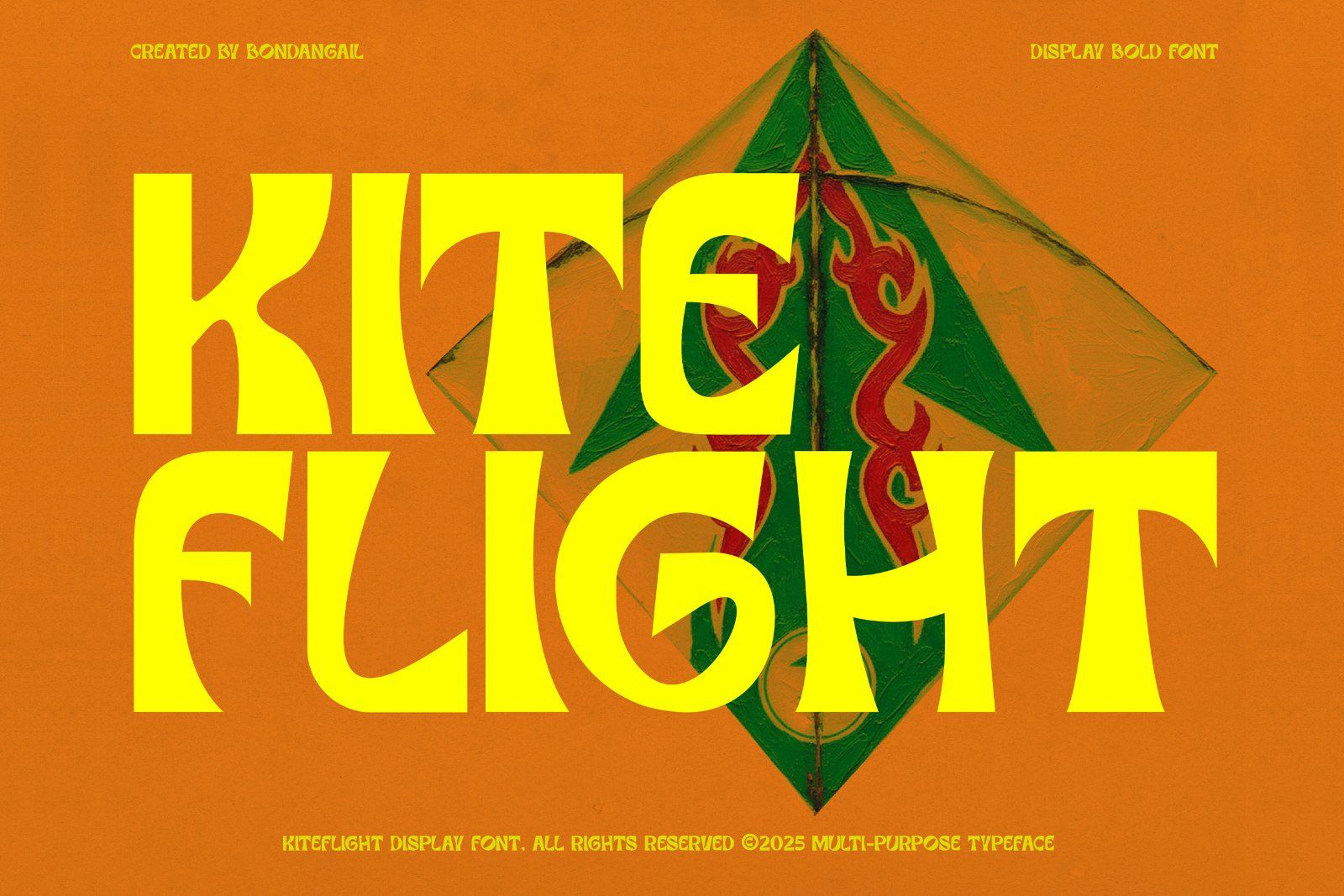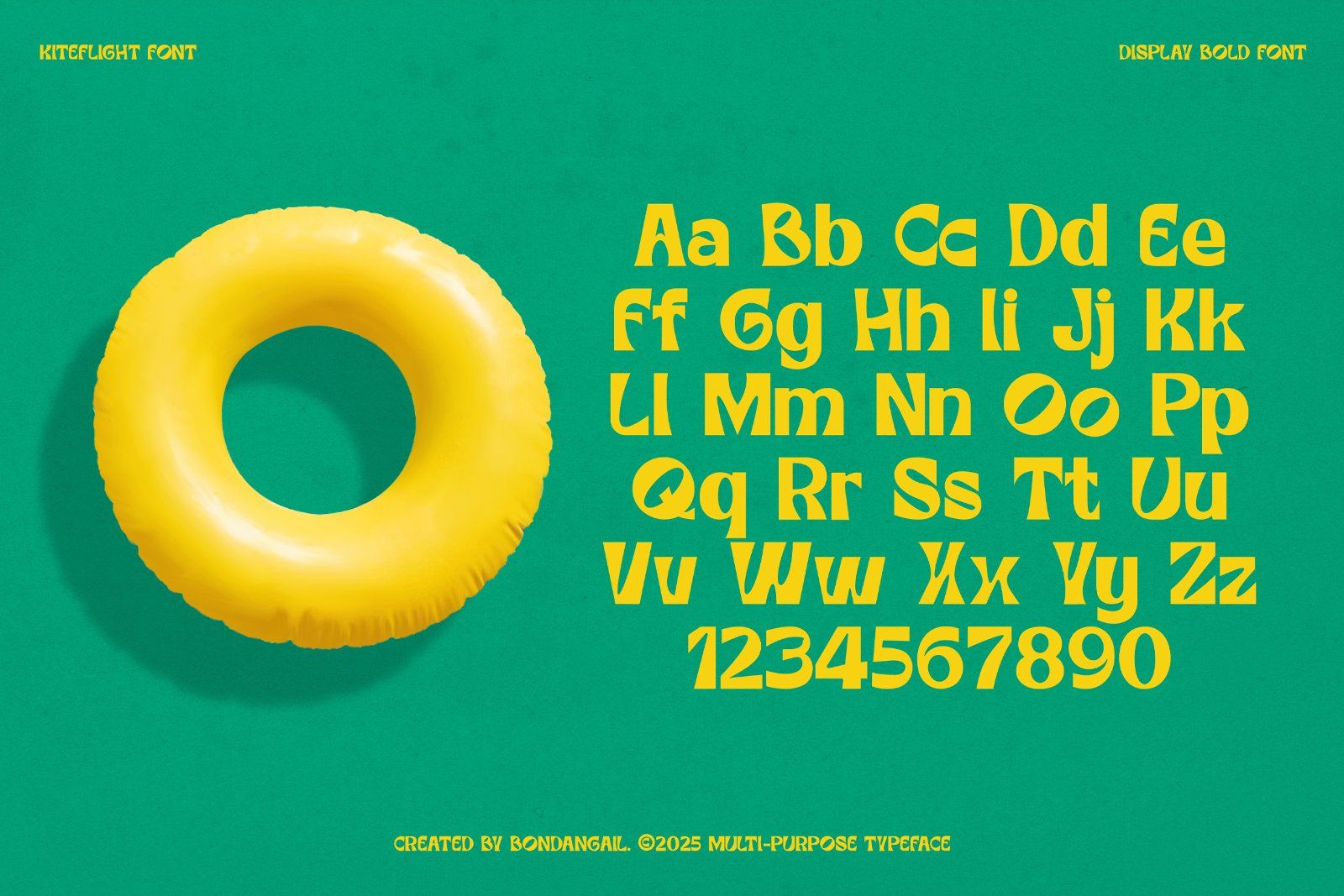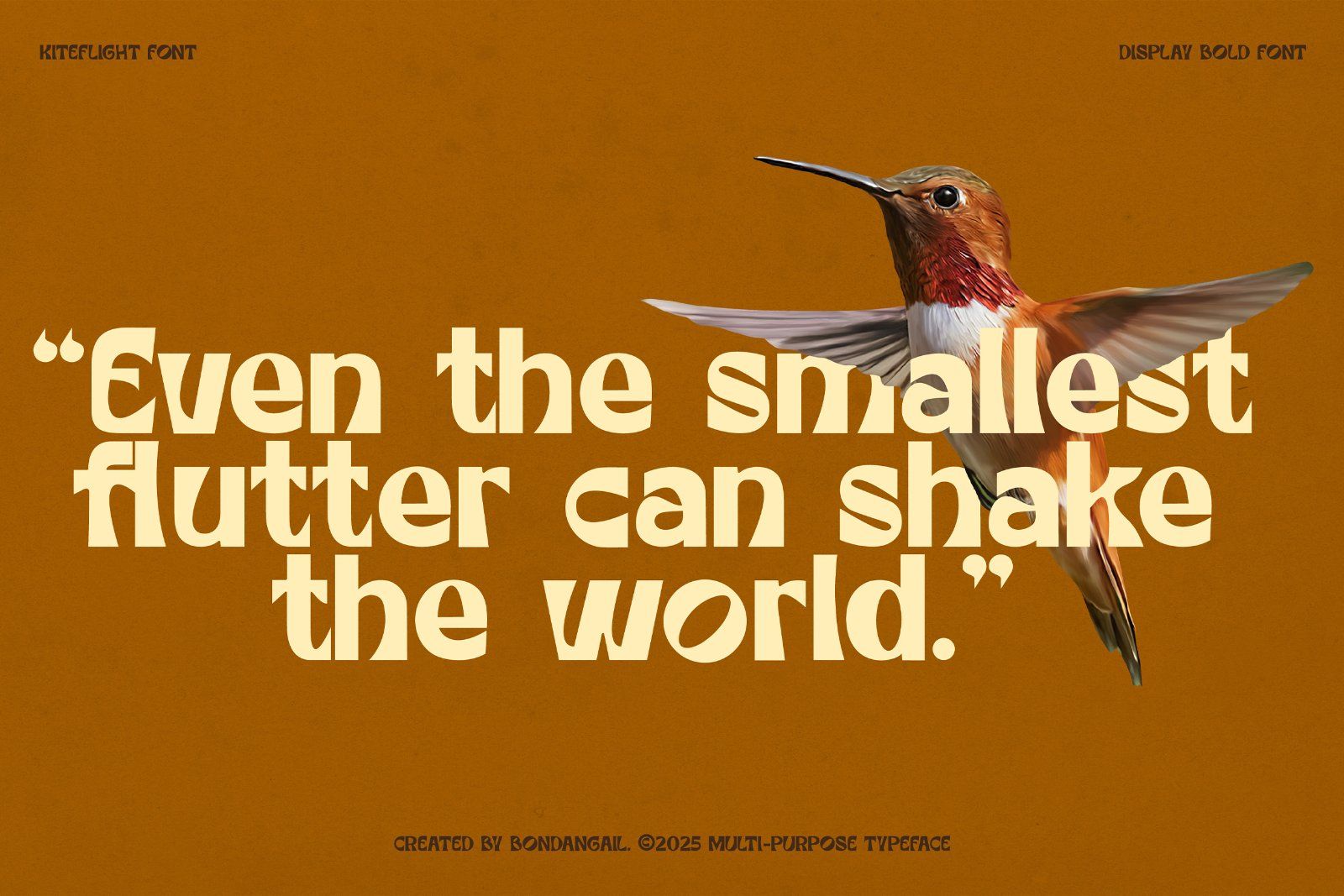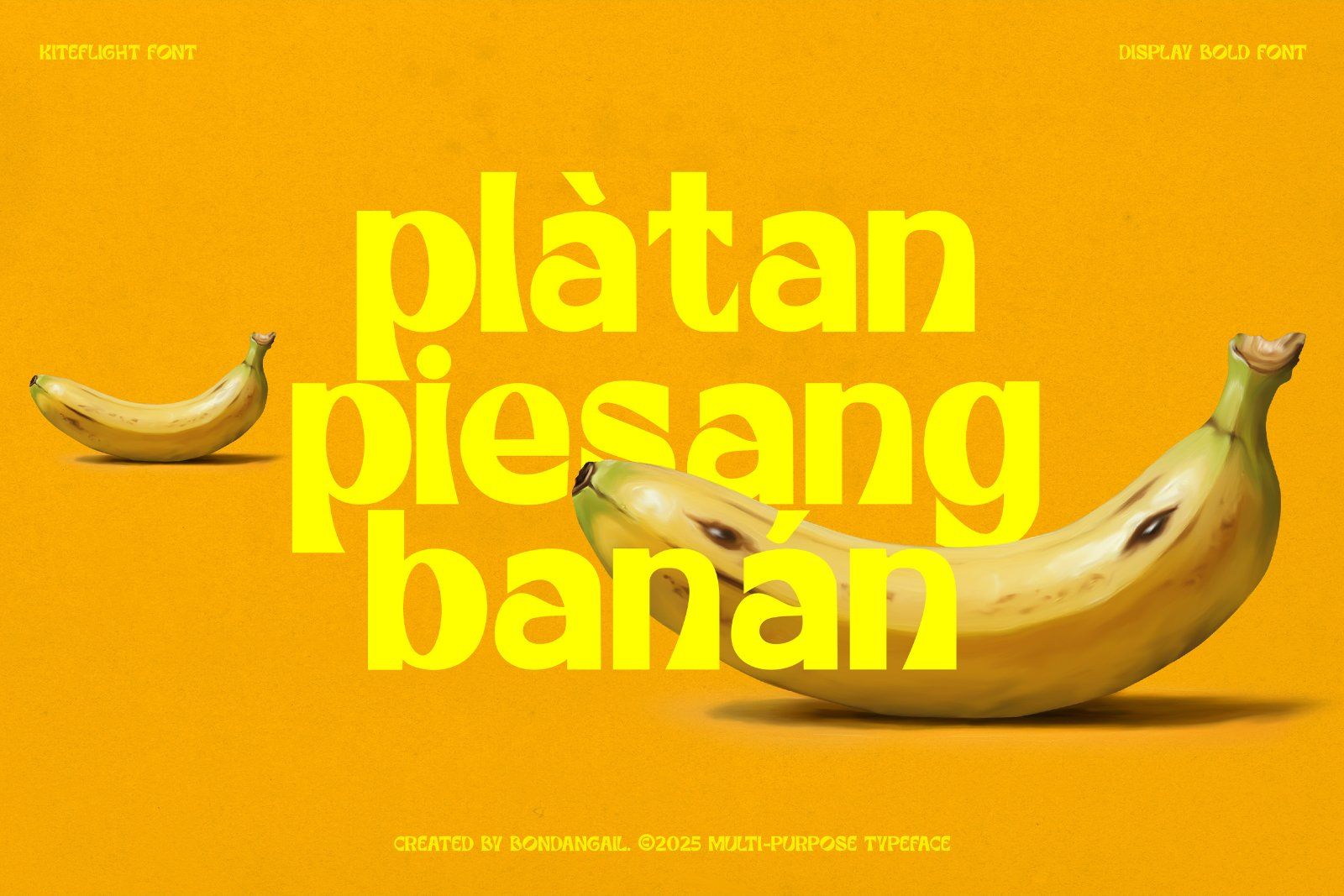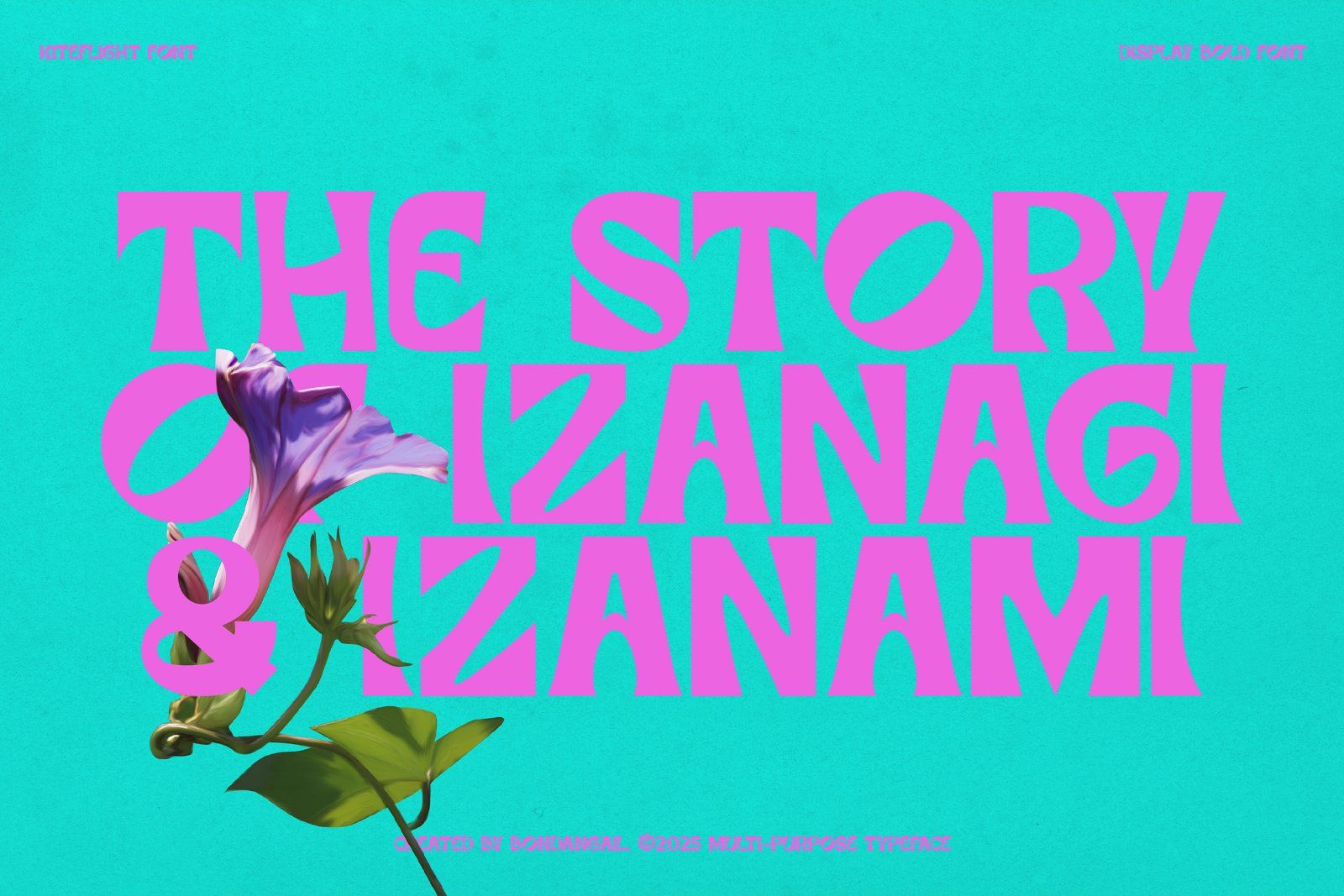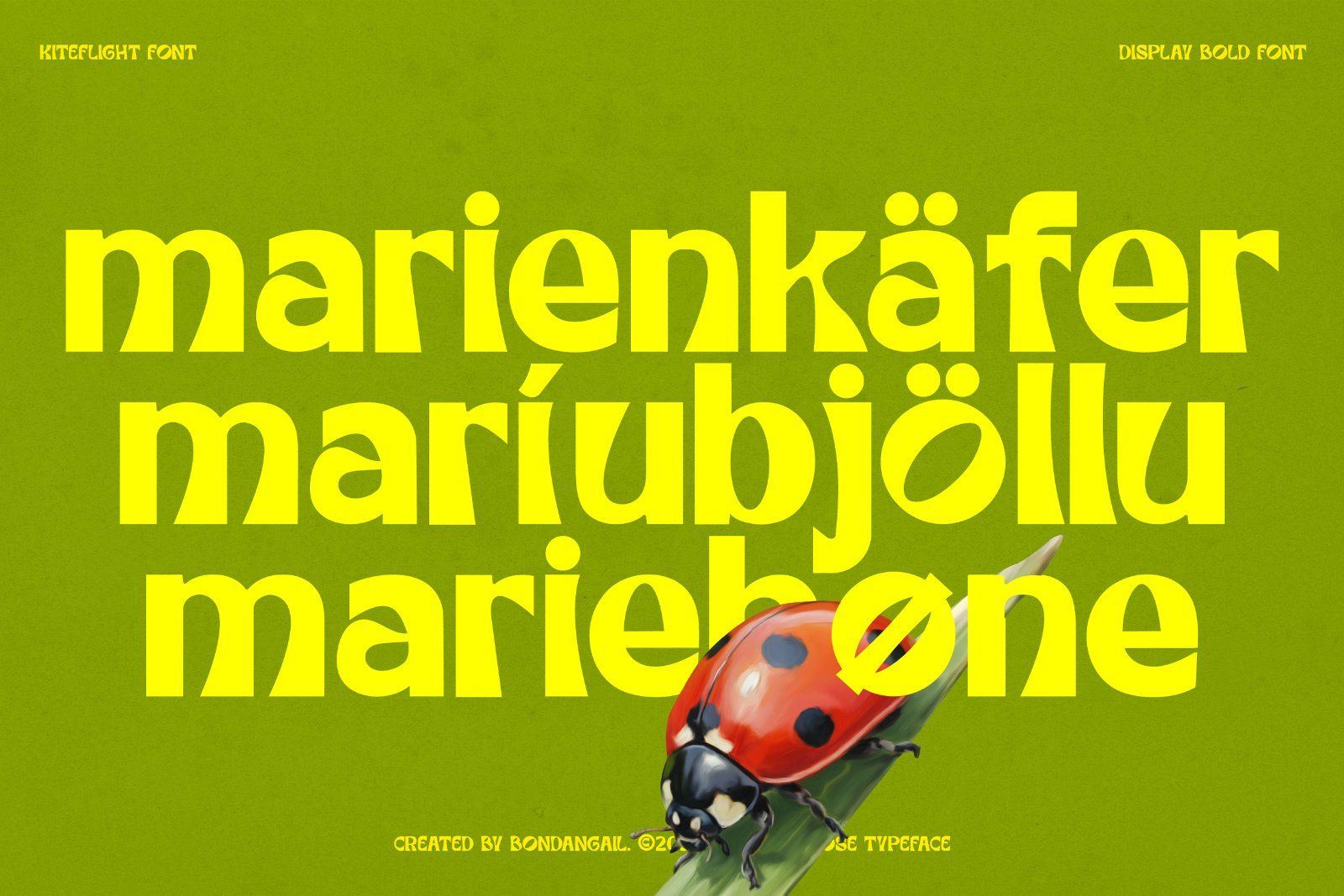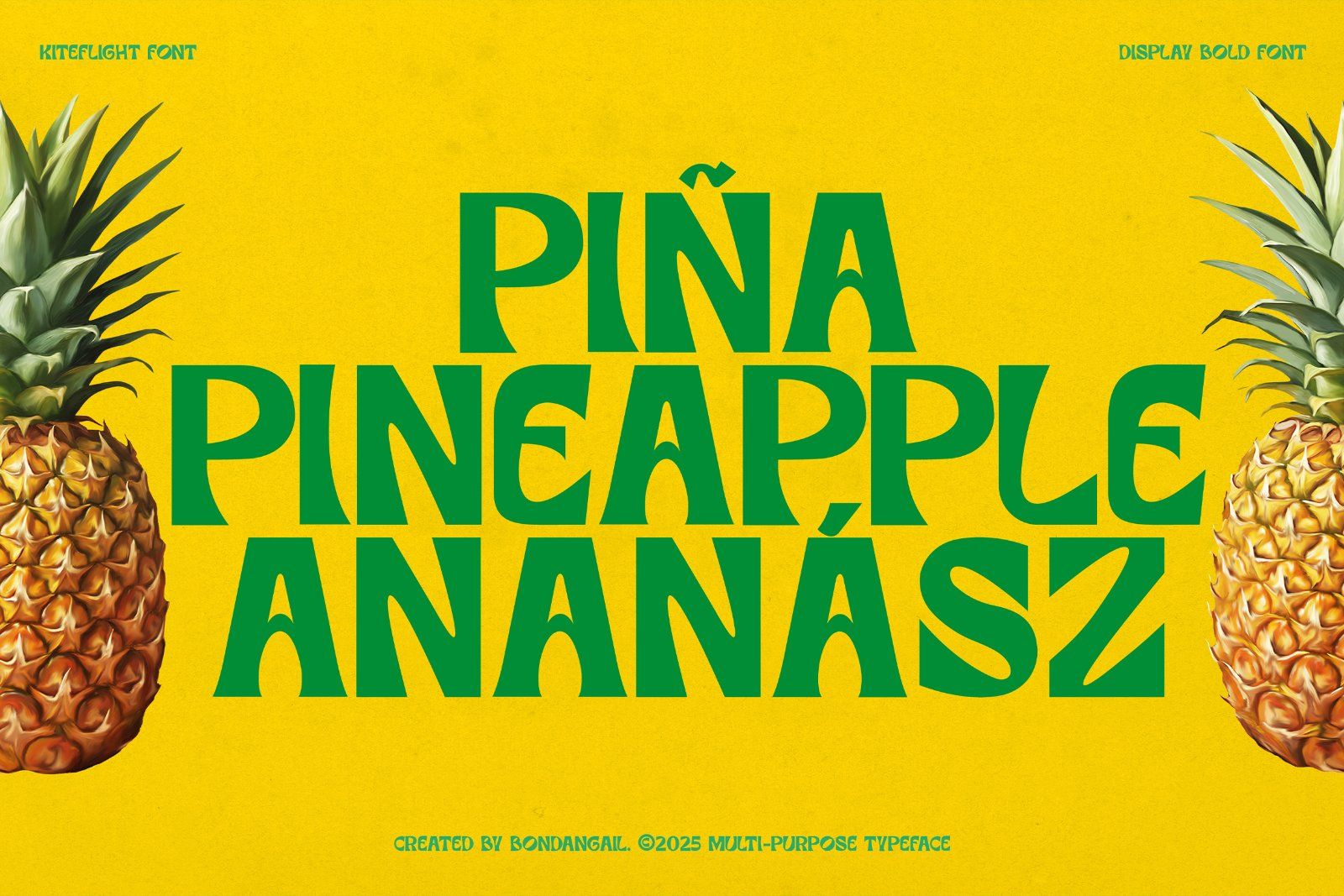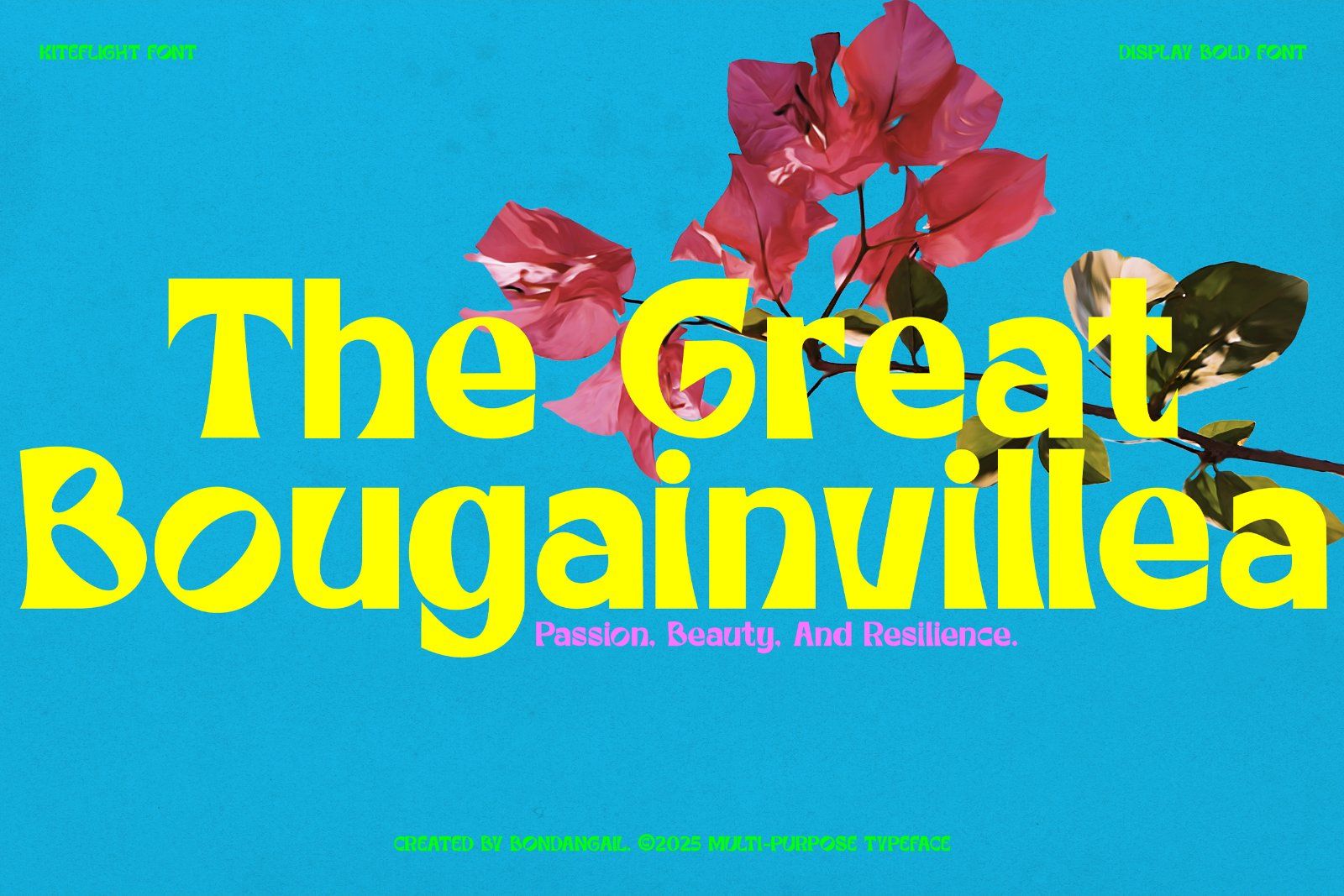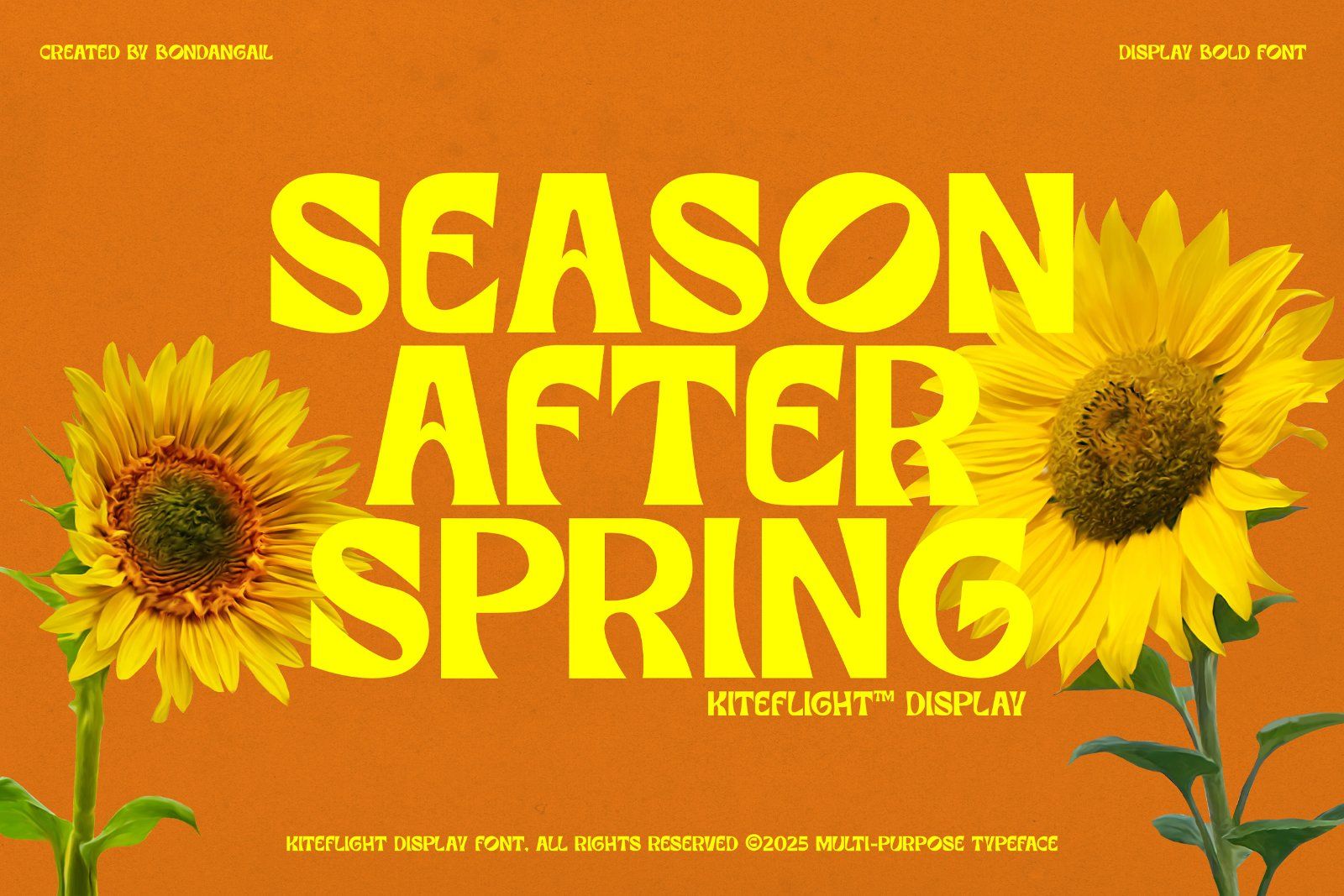
NTRODUCING
KITEFLIGHT - Breezy Display Font
Kiteflight is a bold, breezy typeface that captures the joy of sunny days and the free spirit of summer. Each character is crafted with a rhythmic flow — blending organic curves and dynamic angles that make your words feel alive. Kiteflight is a bright and bold retro-inspired font perfect for summer branding, posters, packaging, and social media graphics. With its smooth curves, handcrafted flow, and cheerful vintage vibe, Kiteflight brings warmth and personality to every design. Ideal for creators who love expressive, eye-catching typography.